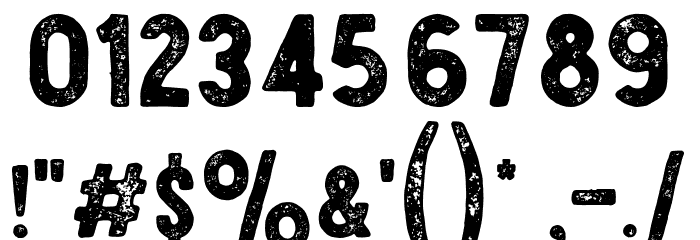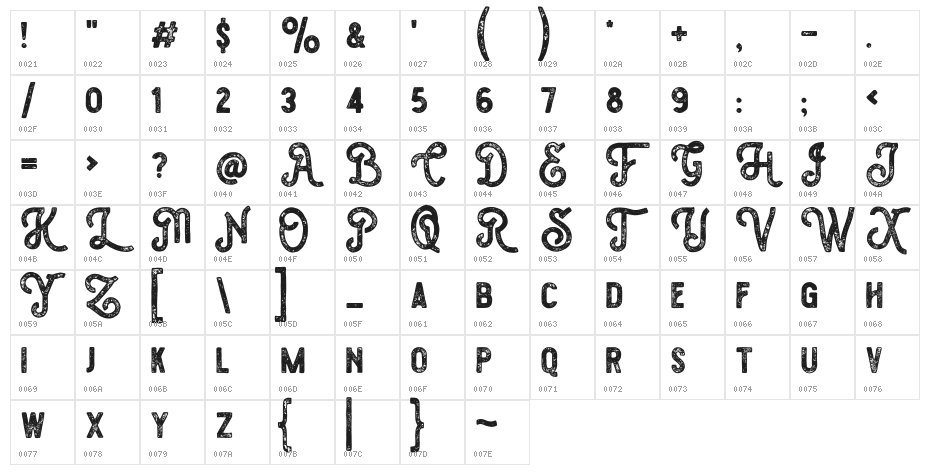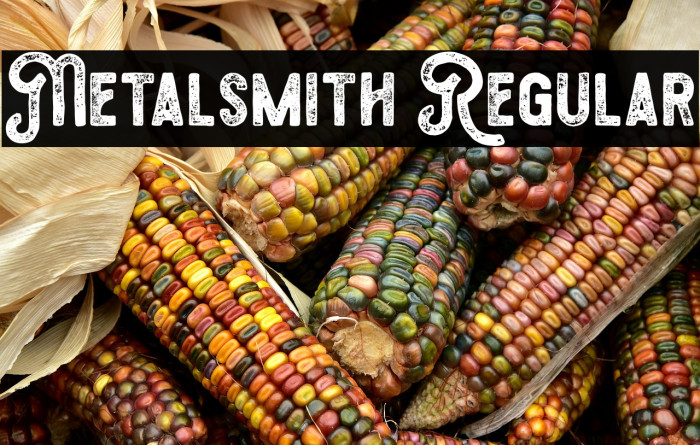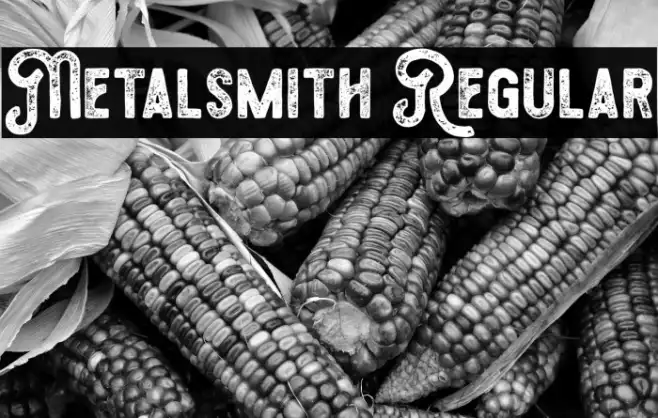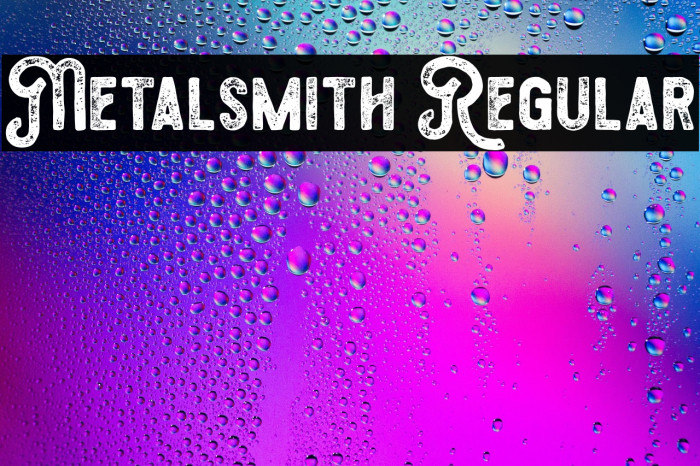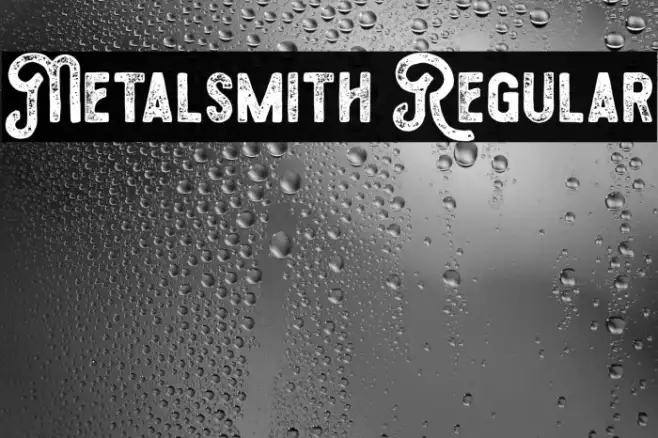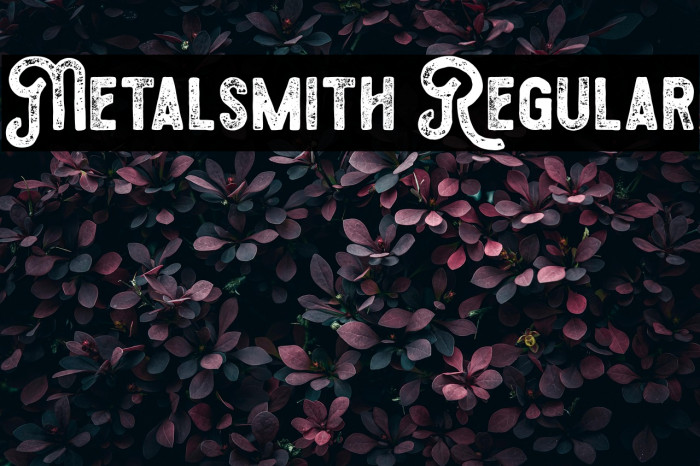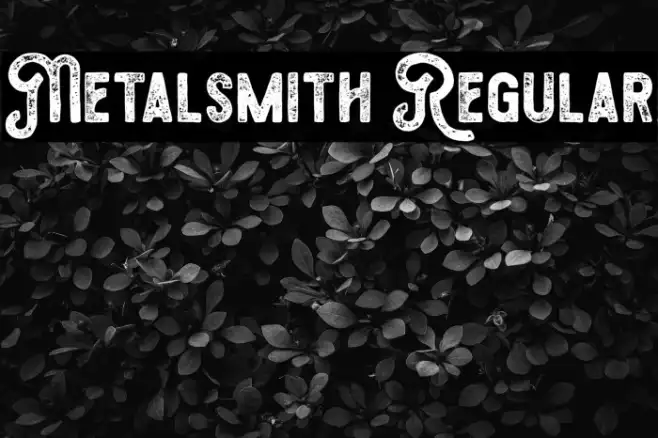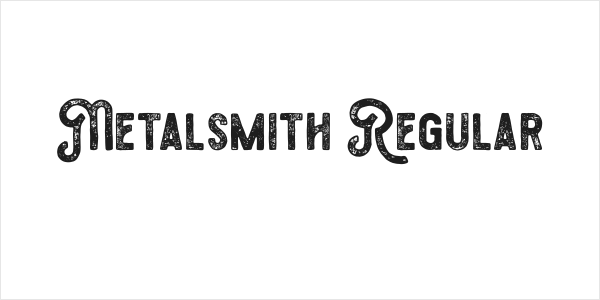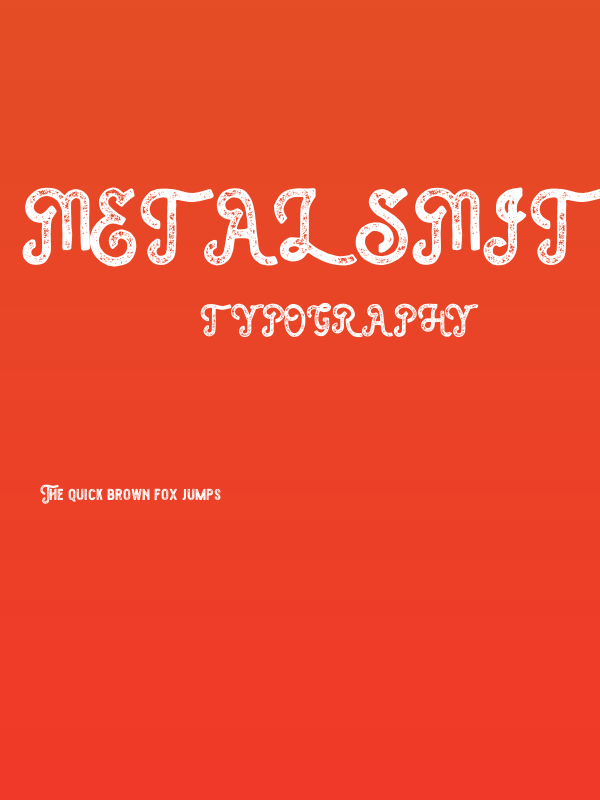
Metalsmith Regular Font
Metalsmith Regular Description
This font features a bold and textured style, reminiscent of industrial or handcrafted aesthetics. The uppercase letters have a distressed appearance, giving them a rugged and vintage feel. The characters are thick and robust, with a consistent weight throughout, making them stand out prominently. The numbers and special characters follow the same distressed pattern, adding to the cohesive look of the font. This design is perfect for projects that require a strong, impactful visual presence.
| Proposed Projects | Ideal for branding, posters, signage, and any design that requires a strong, industrial aesthetic. |